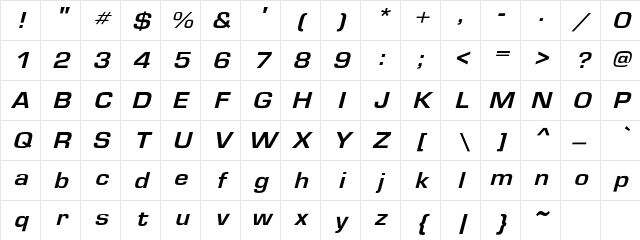
EurostileExtObl Regular
Complete EurostileExtObl Regular glyph index. Displaying only characters natively supported by EurostileExtObl Regular font.
Design Context for EurostileExtObl
EurostileExtObl is a composed and adaptable typeface that performs quietly and consistently across a wide range of design contexts.